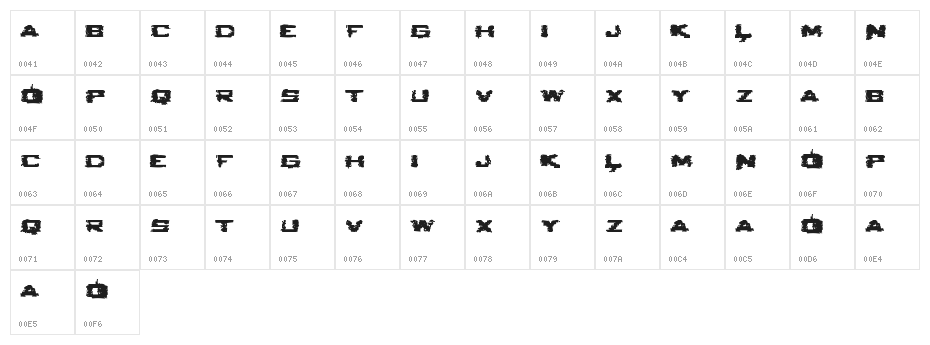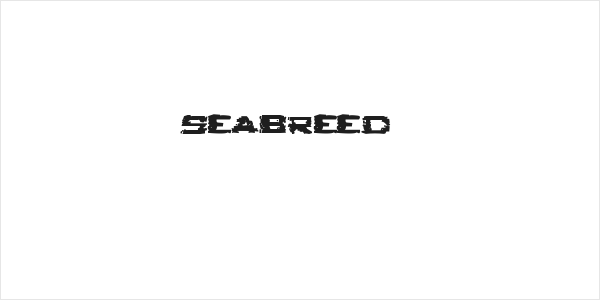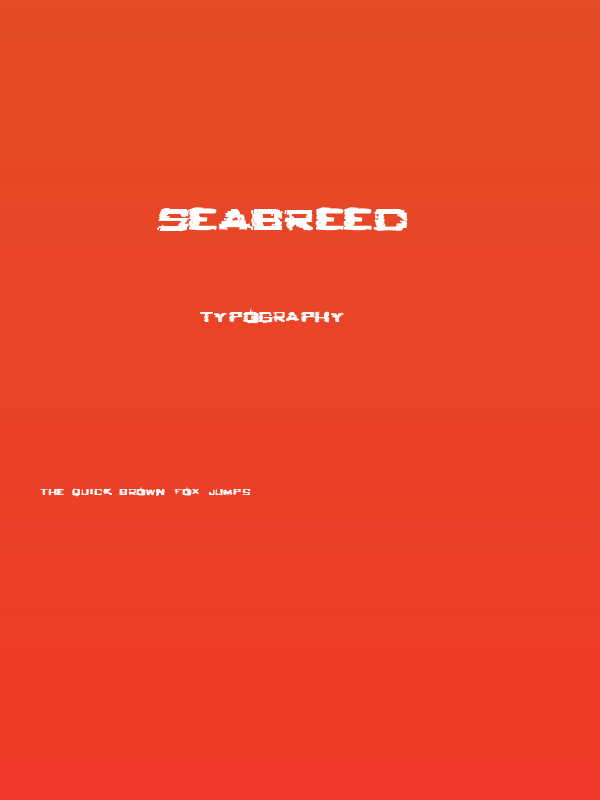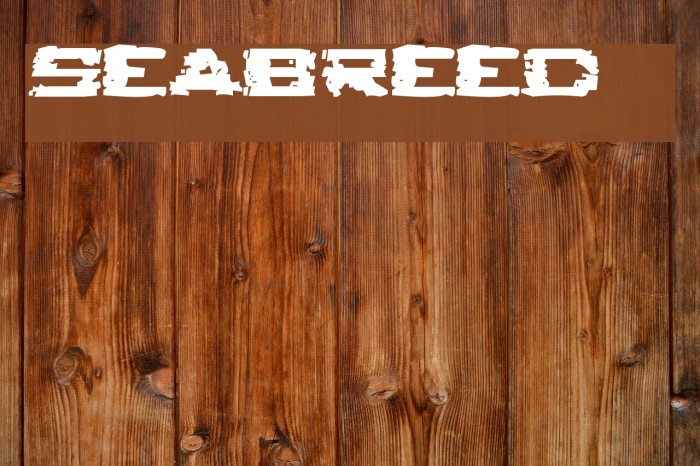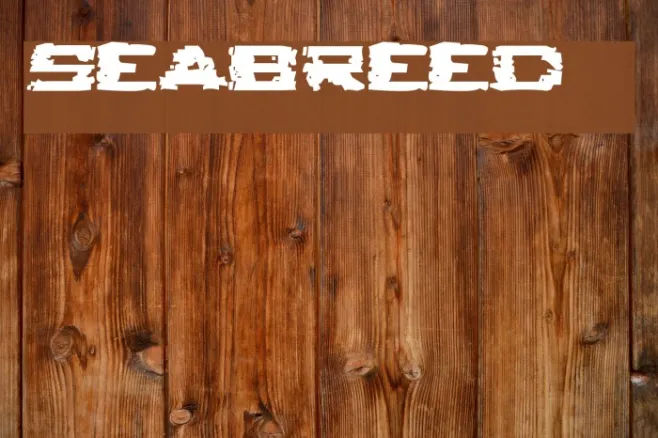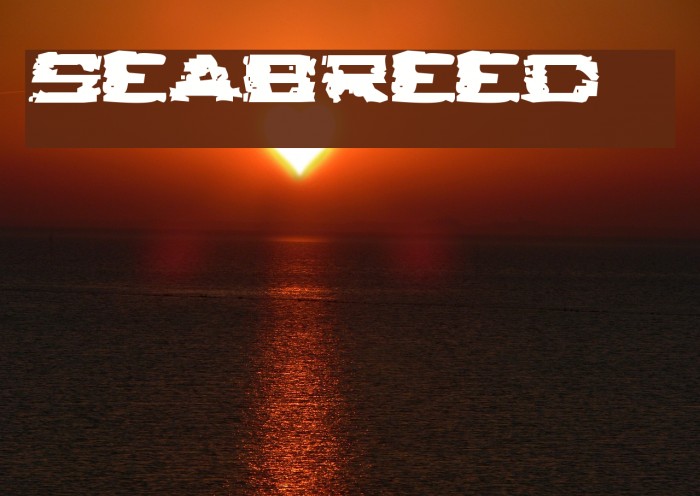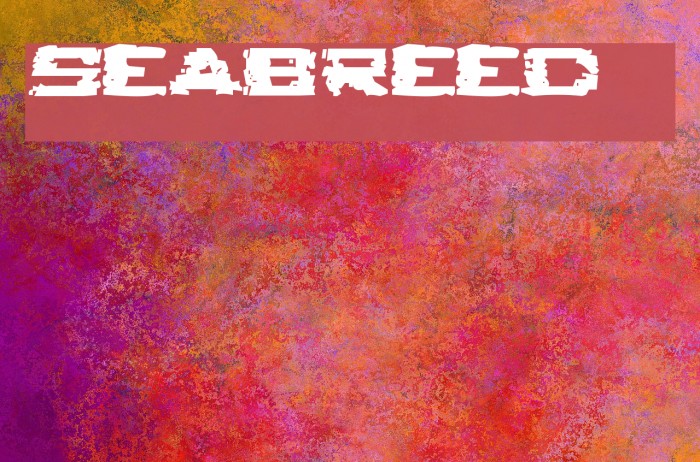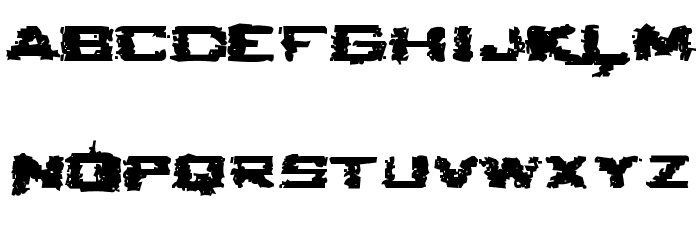
Seabreed 2 Font
Seabreed 2 Description
This font features a rugged, distressed style with a bold and impactful appearance. The characters are heavily textured, giving them a worn and weathered look, reminiscent of eroded surfaces or decayed materials. The uppercase letters are uniform in height, while the overall design maintains a consistent width, creating a balanced yet chaotic visual effect. The font's unique aesthetic makes it stand out, with each letter appearing as if it has been subjected to the elements, adding a sense of history and depth. The rough edges and irregular forms contribute to its distinctive character, making it suitable for projects that require a gritty or industrial feel.
| Proposed Projects | Ideal for use in posters, album covers, video game graphics, and any project requiring a gritty, industrial aesthetic. |